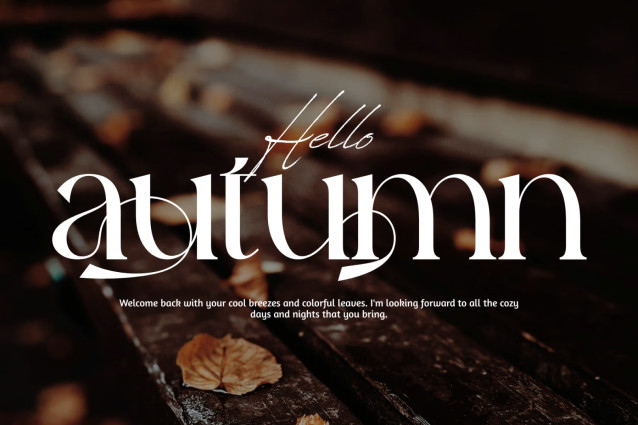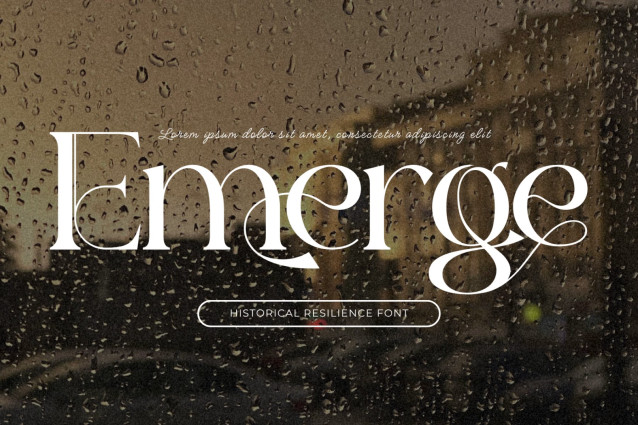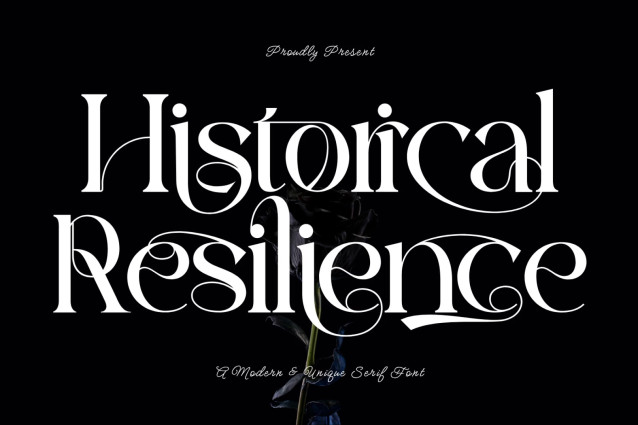
Historical Resilience – Elegant Font
Historical Resilience – Elegant Font is a luxurious modern serif display font that combines timeless elegance with graceful decorative details. Featuring high-contrast letterforms, refined curves, delicate hairlines, and beautifully crafted swashes, this typeface creates a sophisticated visual identity that feels both classic and contemporary. Every character is carefully designed to balance editorial refinement with artistic expression, allowing your typography to stand out with effortless beauty.
Perfect for luxury branding, fashion editorials, wedding invitations, cosmetic packaging, jewelry logos, beauty brands, boutique identities, magazine headlines, premium stationery, book covers, and elegant social media content, Historical Resilience adds sophistication to every design. Its expressive ligatures, flowing flourishes, and refined craftsmanship make it an ideal choice for designers seeking a typeface that communicates elegance, romance, and premium quality with exceptional style.